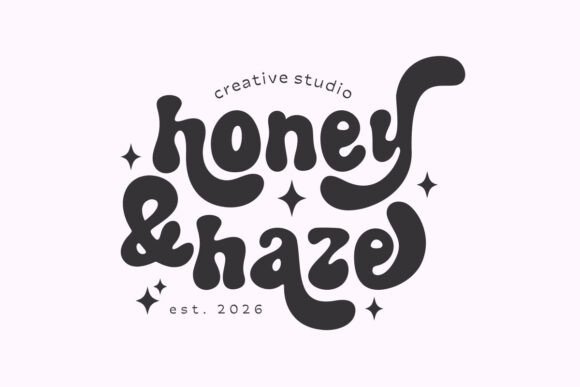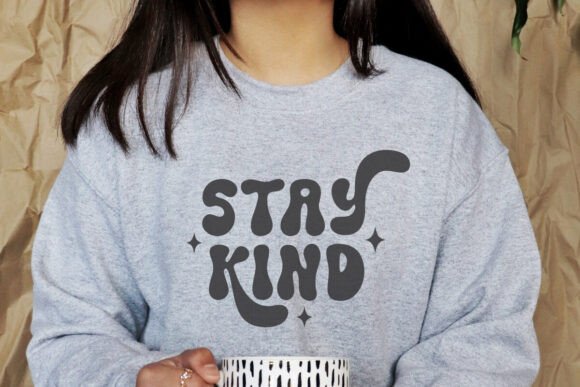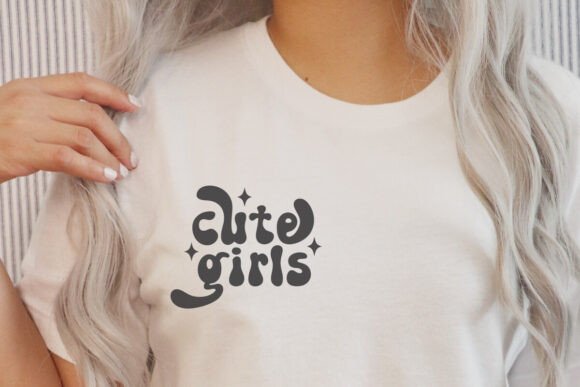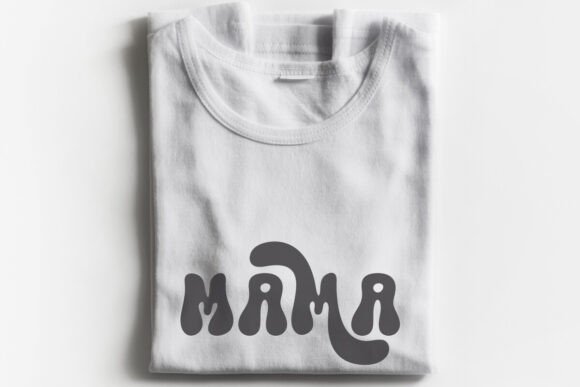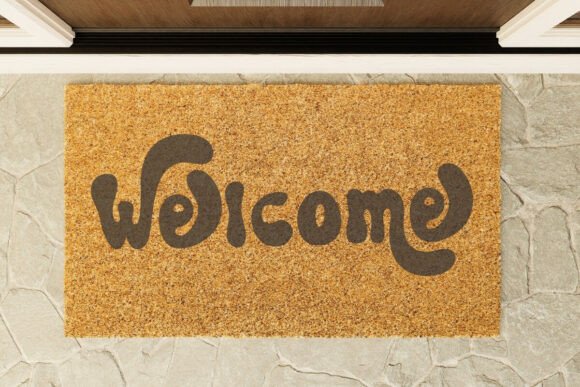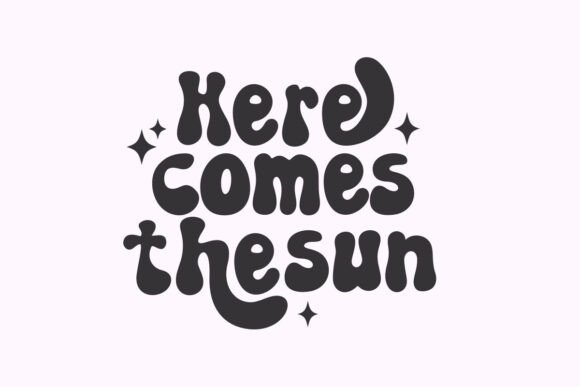
Introduction to Make Daisy Font
Have you ever stared at a blank page, waiting for inspiration to strike, only to be met with a sea of possibilities? That’s exactly the feeling we aimed to evoke with the creation of Make Daisy Font – an enchanting blend of retro charm and modern finesse. Whether you’re a seasoned designer or a creative enthusiast, this font is sure to bring a smile to your face and a touch of magic to your designs.
As a valuable design resource, Make Daisy Font offers the perfect balance of old-school cool and contemporary style, making it an ideal choice for a wide range of creative projects. From t-shirt slogans to captivating poster headlines, brand logos to tote bags, this font is the perfect companion for designers looking to add a touch of whimsy and personality to their work.
Make Daisy Font: Key Features
- Unique, hand-drawn style with a transparent background for versatility
- Includes a comprehensive character set with over 200 glyphs for extensive language support
Honest Review: Make Daisy Font
I recently stumbled upon Make Daisy Font, a lovely design resource that caught my attention. As a designer, I appreciate a well-crafted font that can elevate a creative project. In this review, I’ll share my thoughts on what works well and what could be improved.
- High quality design: Make Daisy Font boasts a beautiful, hand-drawn design that’s perfect for adding a touch of whimsy to your project.
- Limited character set: Make Daisy Font is limited to uppercase and lowercase letters, with no support for special characters or symbols.
- No font variations: There are no different font weights or styles available, which might limit its versatility.
Make Daisy Font
Make Daisy Font is a versatile and creative design resource, perfect for adding a touch of elegance to your high-quality projects. With a transparent background, this font is easily customizable and adaptable to various design platforms.
Tips for Getting the Most Out of Make Daisy Font
Make Daisy Font is ideal for various creative projects, including:
- Blogging and article design
- Print materials, such as business cards and brochures
- Website design and development